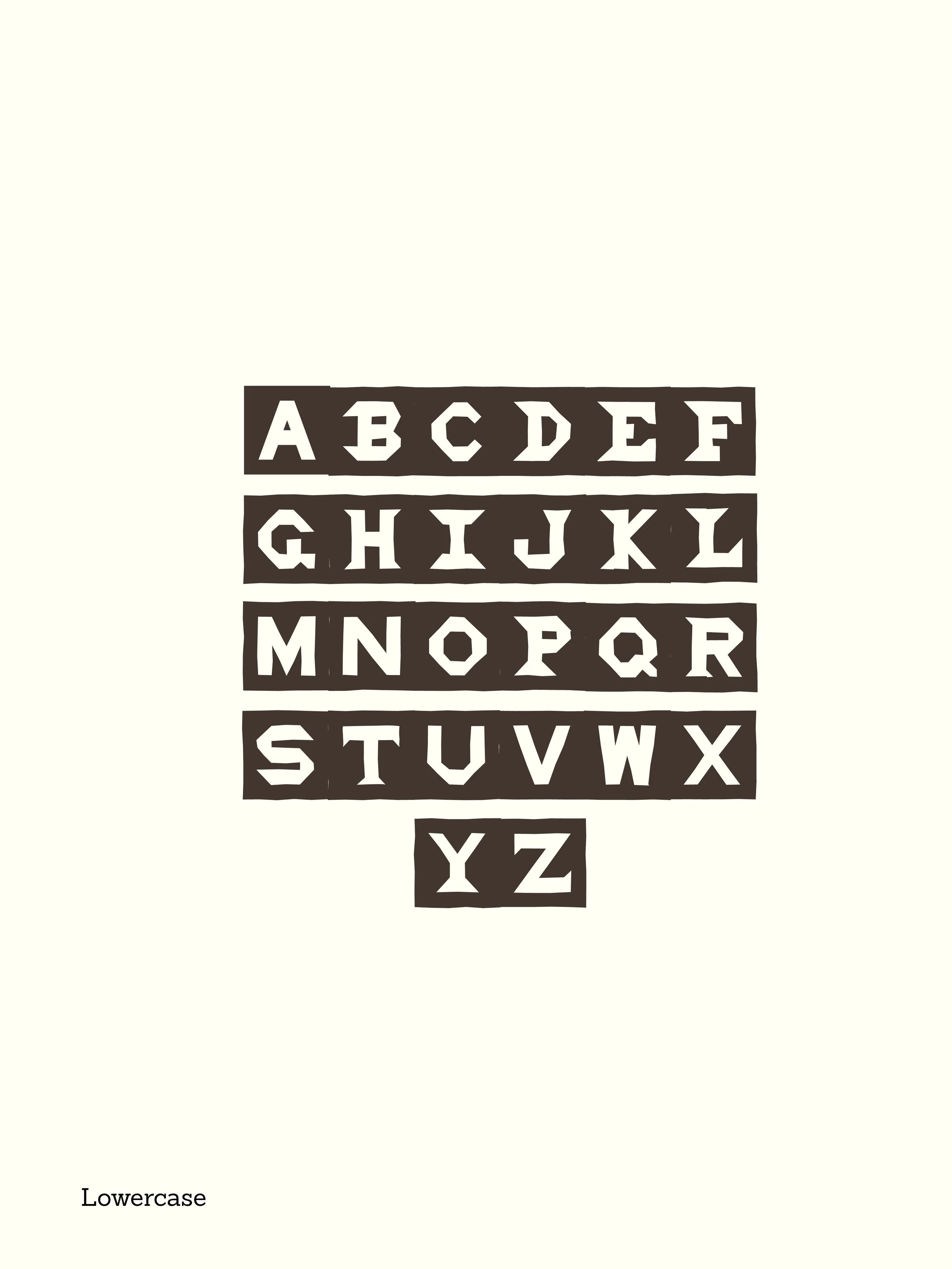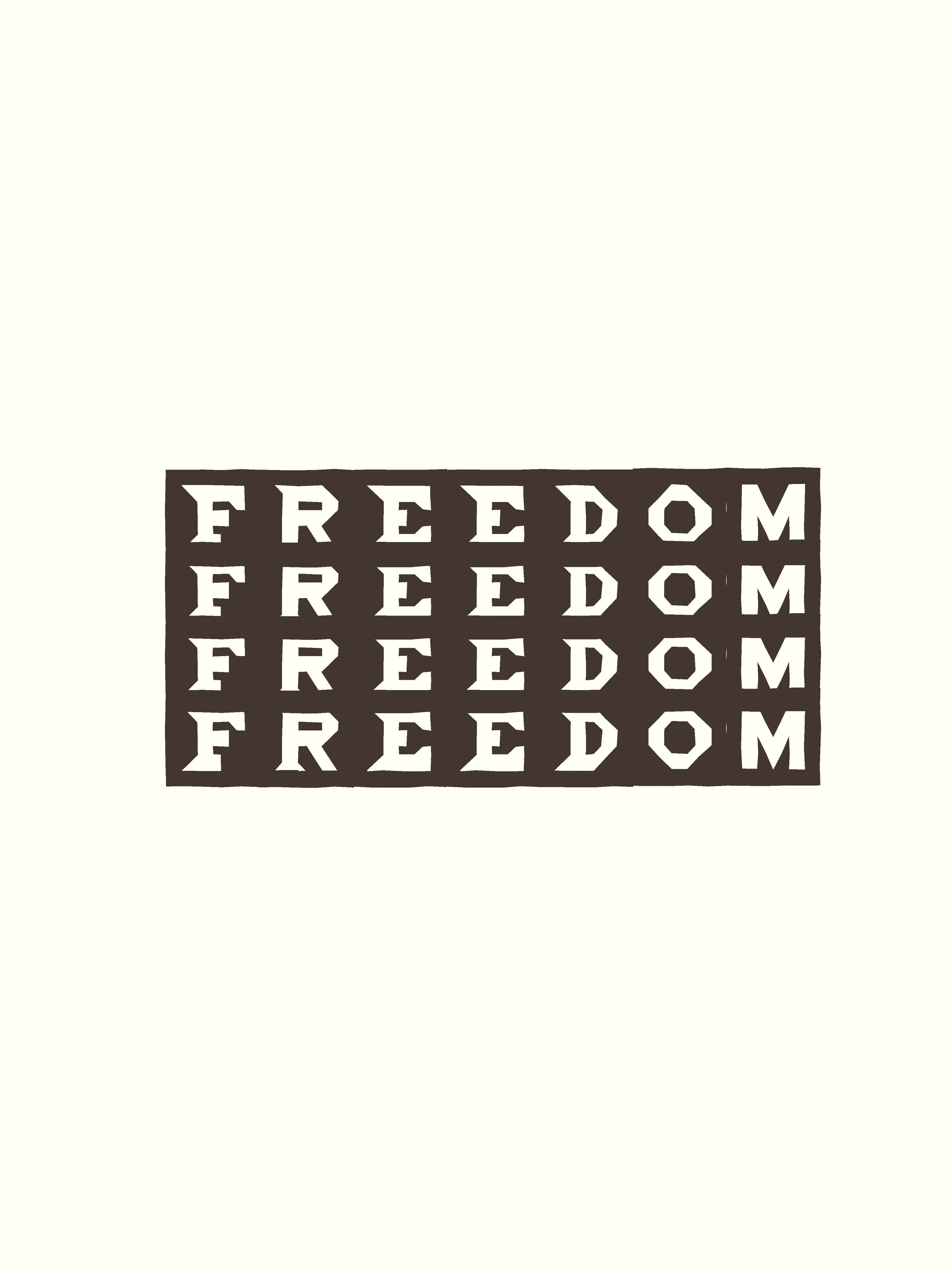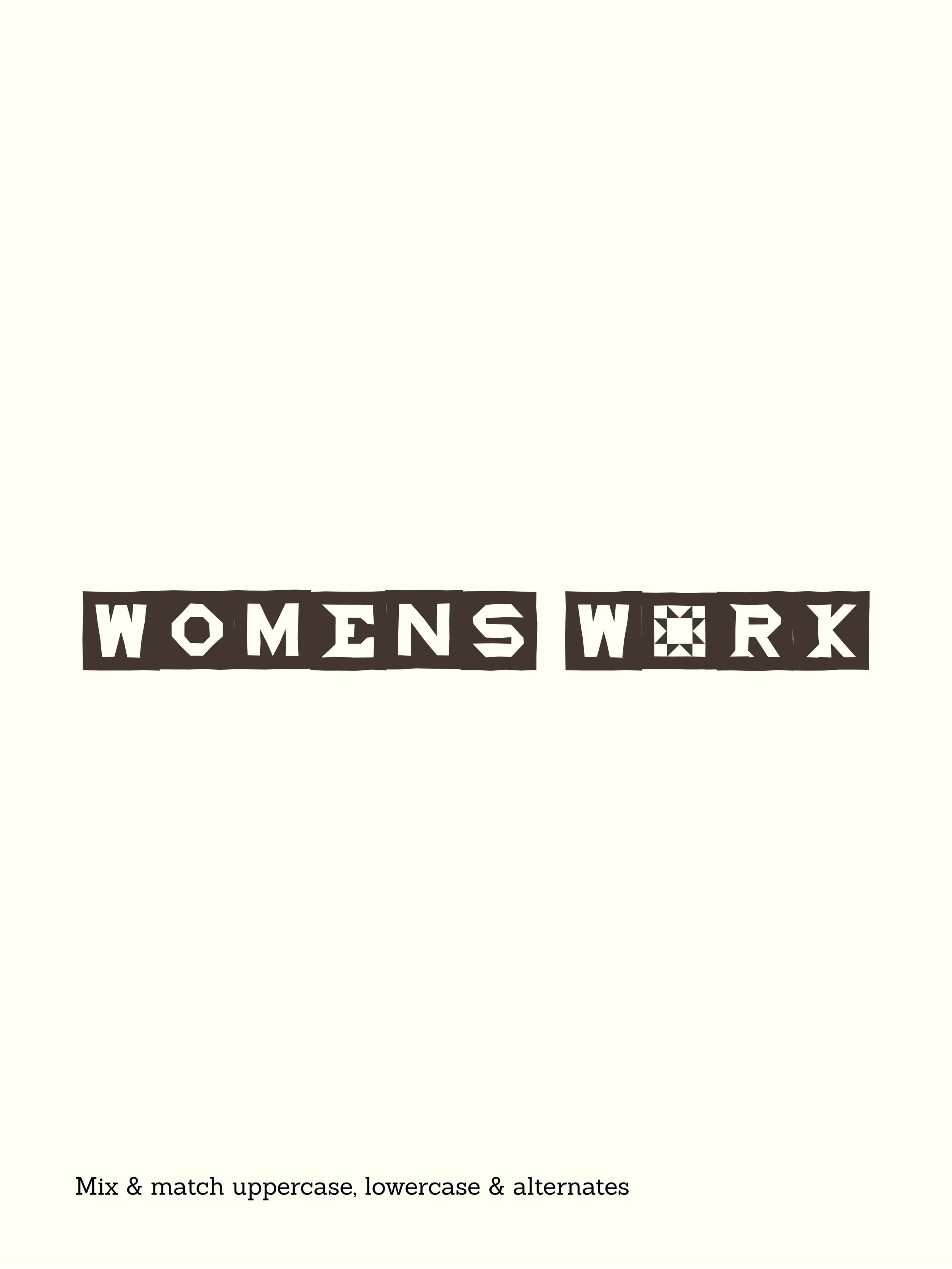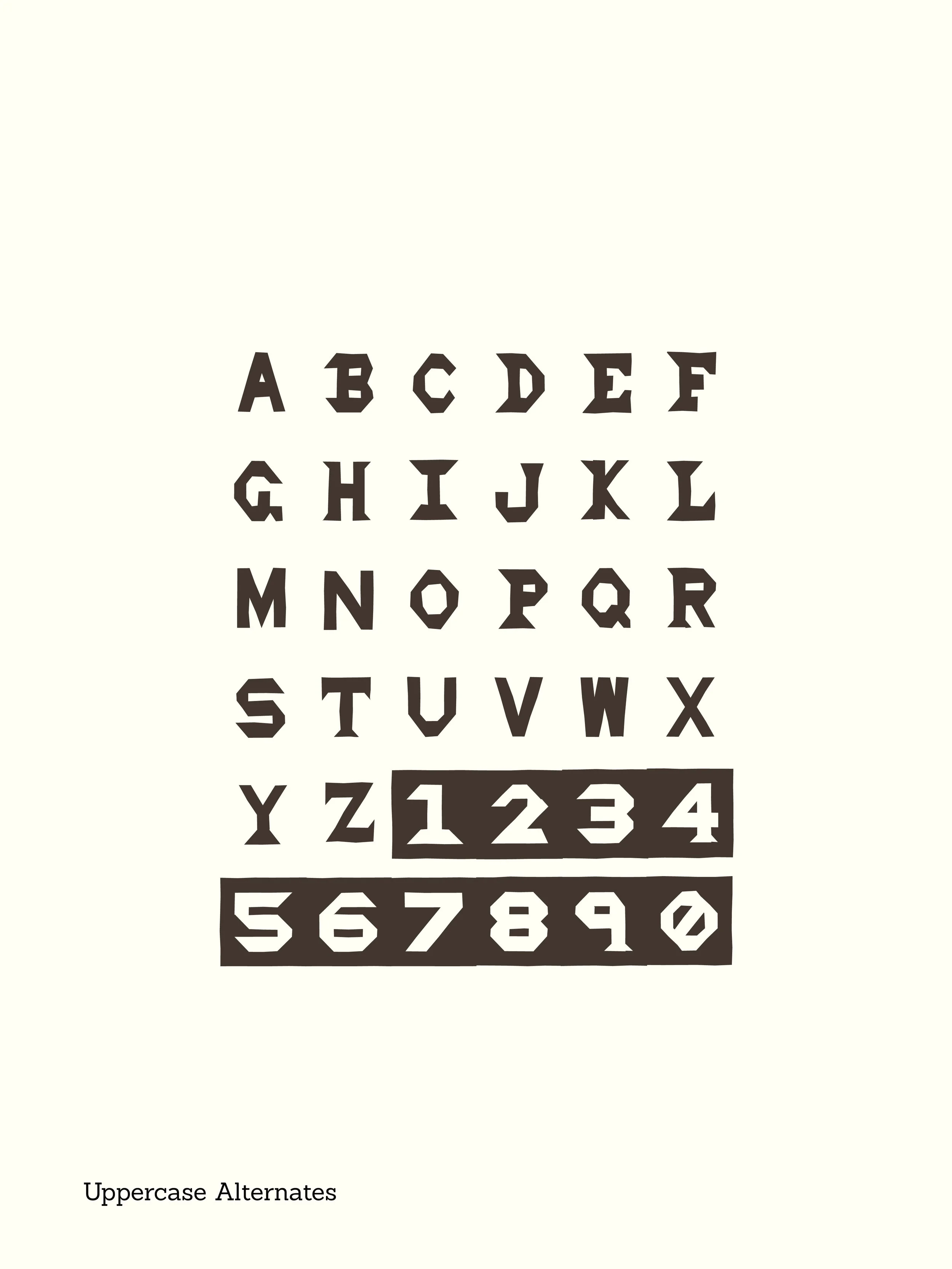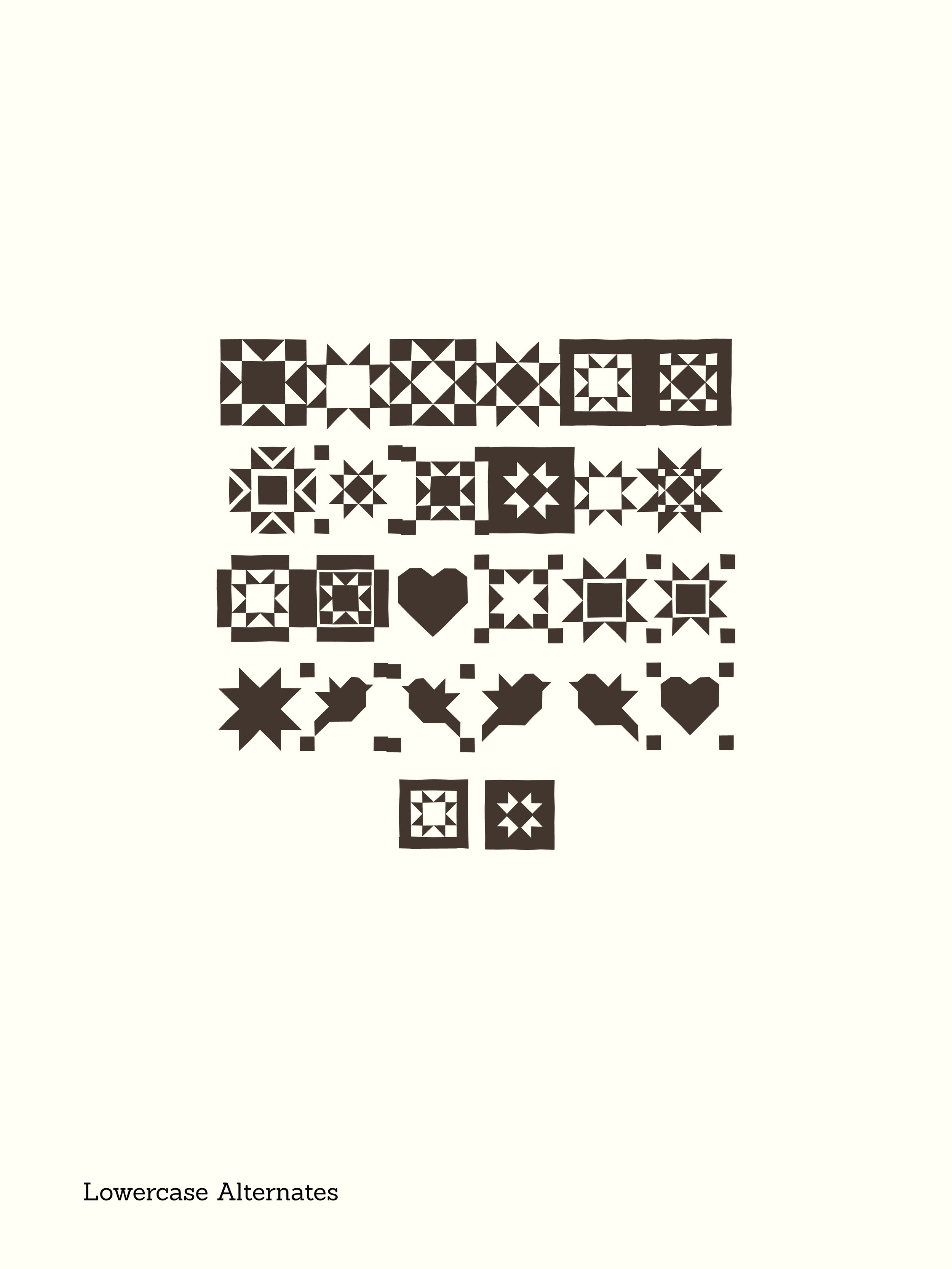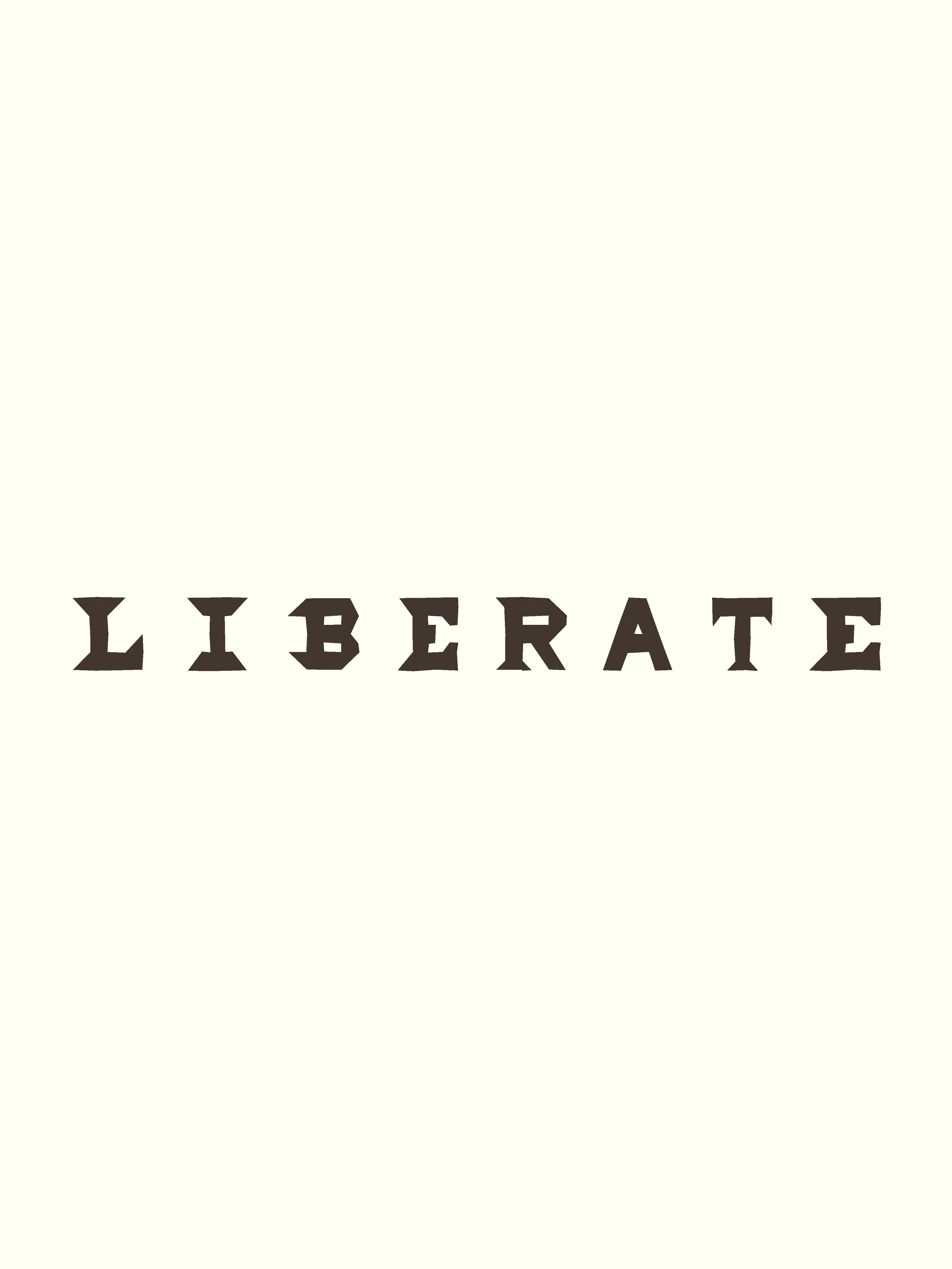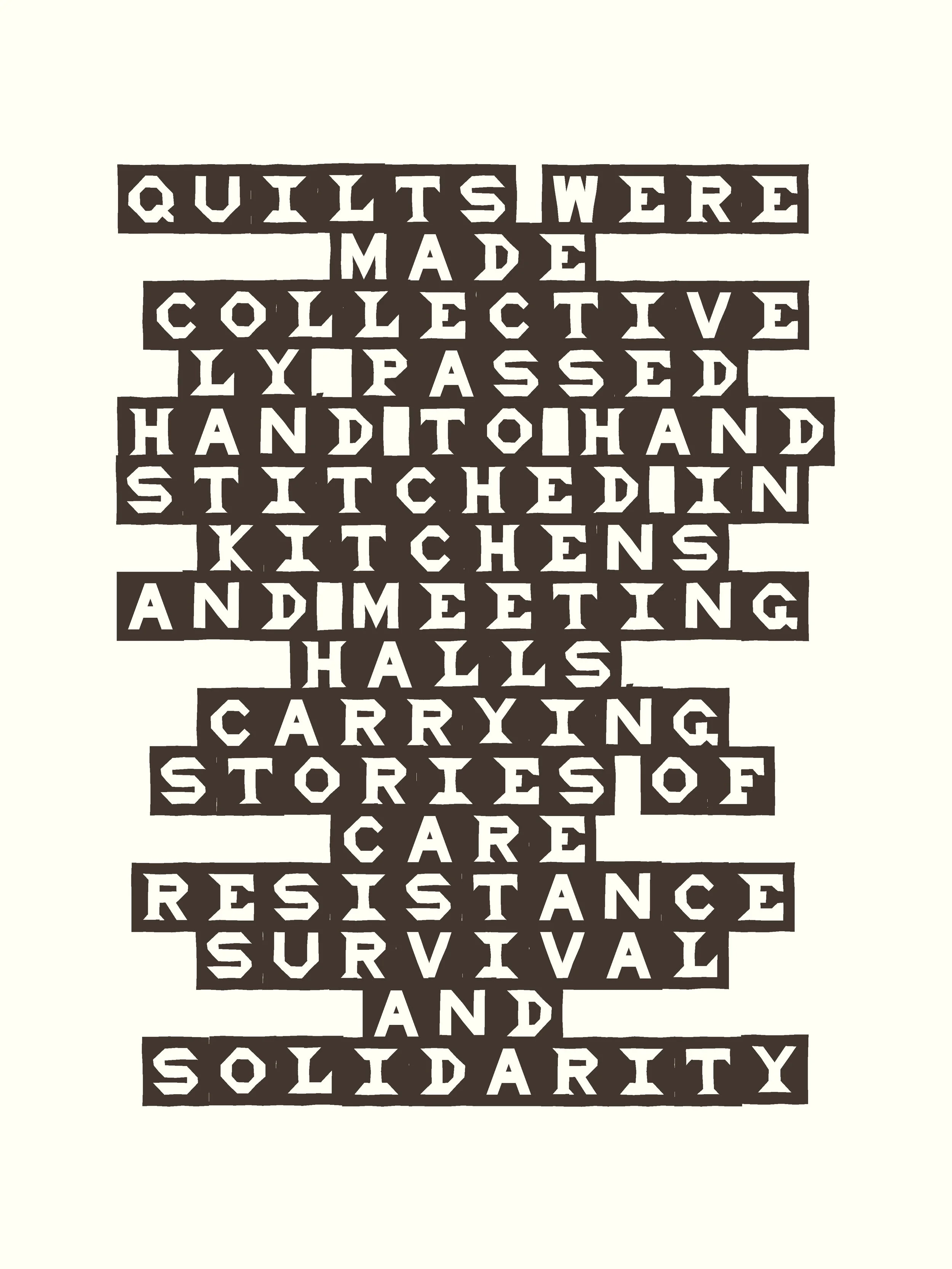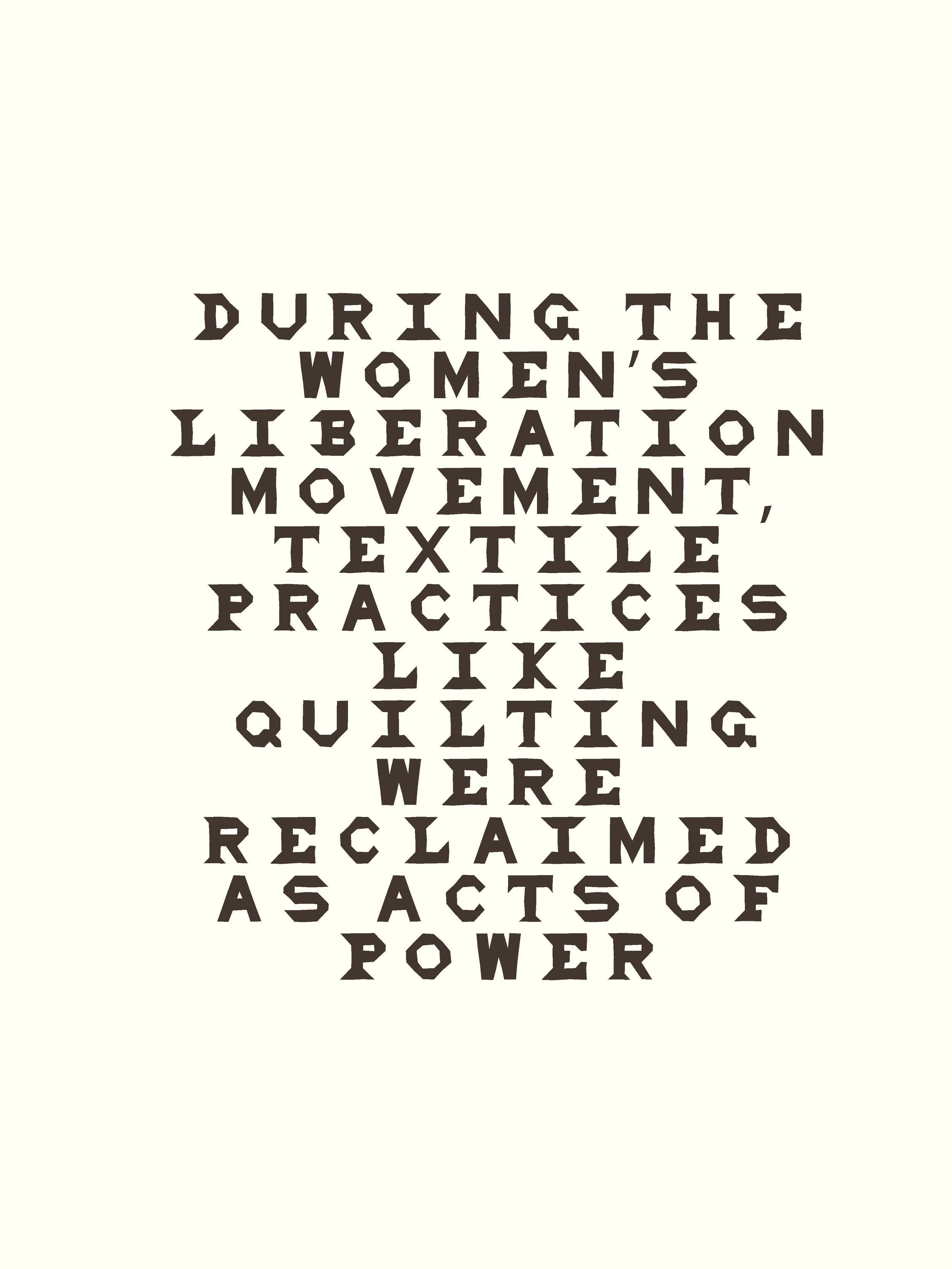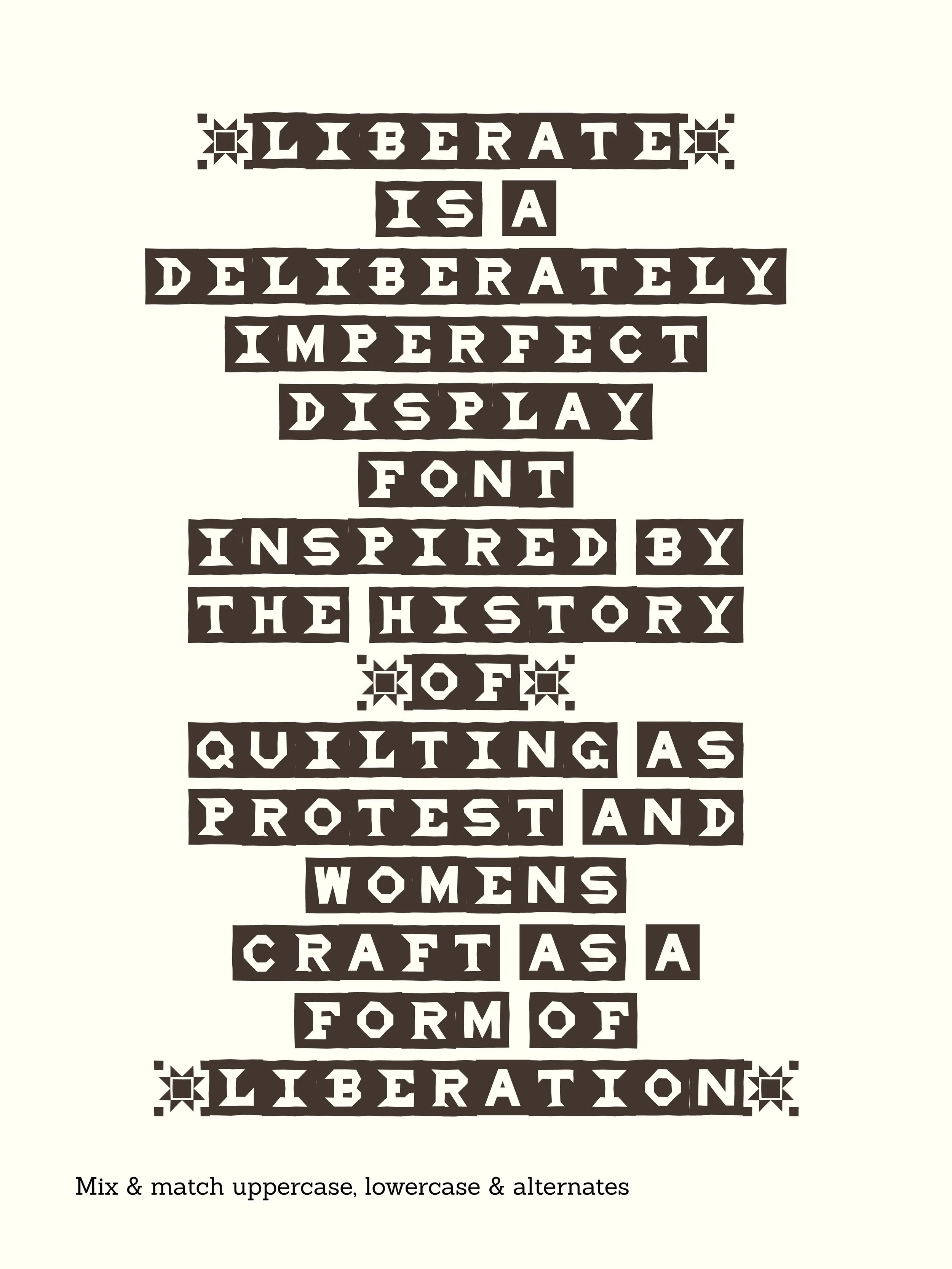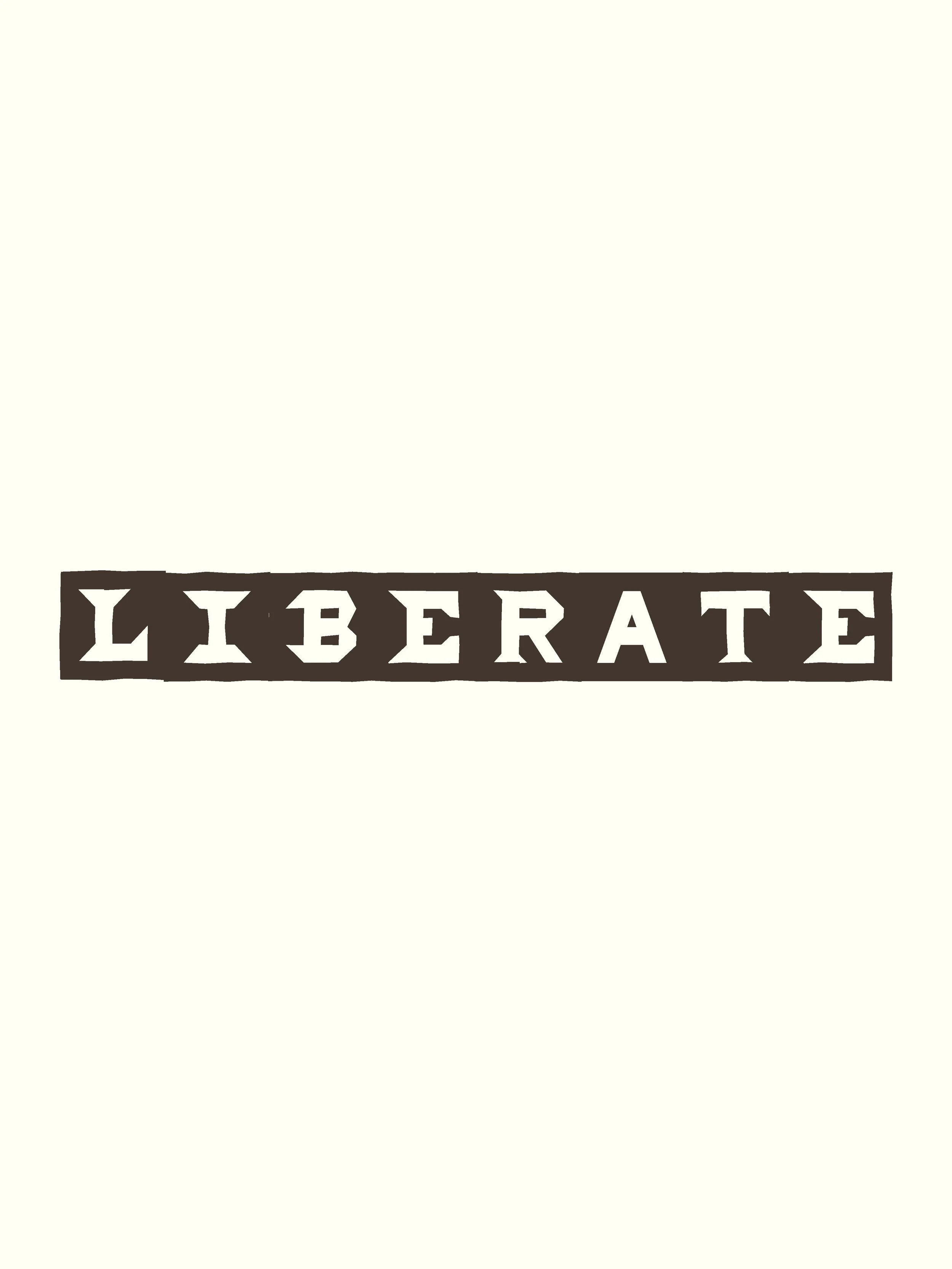
Liberate | Hand Crafted Font
LIBERATE is a deliberately imperfect display font inspired by the history of quilting as protest and women’s craft as a form of liberation. It draws from stitched messages, patched fabrics, freedom quilts, protest banners, and hand-made archives — where letters were assembled slowly, collectively, and with intention.
Quilting has long been a language used when other forms of authorship were denied. During the women’s liberation movement, textile practices were reclaimed as acts of resistance rather than domestic obligation — work made by hand, shared in community, and used to say what could not always be spoken aloud. LIBERATE carries that spirit forward into type.
This all-caps display font is very imperfect by design. Letters sit slightly off-grid, edges wobble, spacing resists uniformity — honouring the truth of hand-cut fabric, patched seams, and movement-led making. The imperfections are intentional: they are part of the message.
Each letter feels constructed rather than drawn — assembled piece by piece, like a quilt. LIBERATE is not polished, neat, or neutral. It is expressive, human, and quietly defiant.
• Uppercase A–Z, Numbers 0–9, and very basic punctuation — simple, open letterforms without framing
• Lowercase a–z, Numbers 0–9, and very basic punctuation — characters built into block-quilt shapes
• An alternate, thinner uppercase style designed to introduce patchwork-like variation
LIBERATE is purposely imperfect. Some letters will appear slightly misaligned, uneven, or irregular in spacing. This is intentional and central to the spirit of the font — reflecting hand-made quilting, patchwork construction, and the visual language of protest.
LIBERATE is both a tool and a tribute — honouring women’s craft as a means of expression, resistance, and collective voice. Like liberation itself, it is built piece by piece.